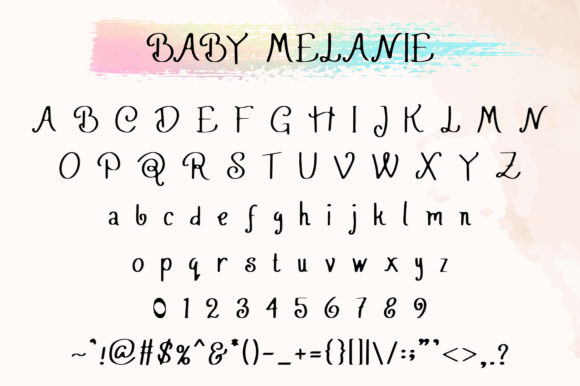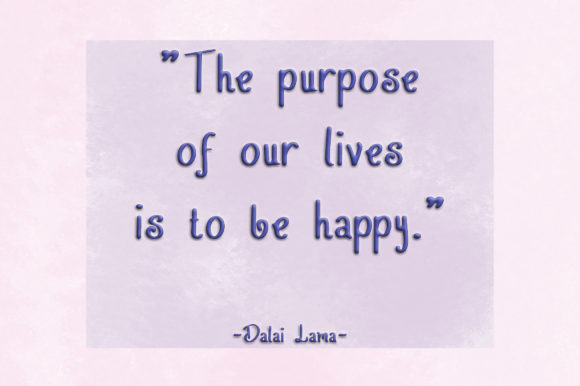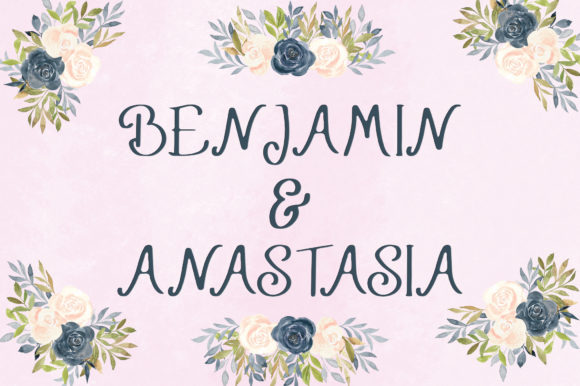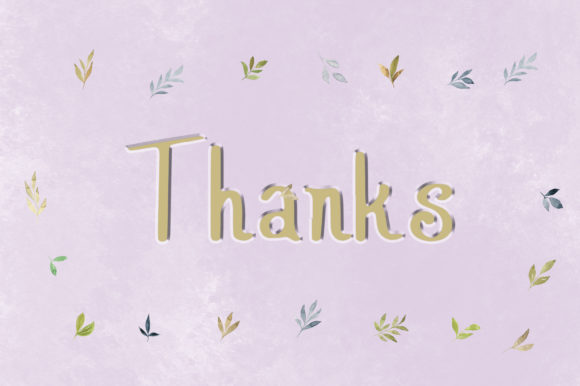
Discover the Magic of Baby Melanie Font
Have you ever been working on a design project and suddenly, everything falls into place? The colors, the textures, the typography – it’s as if the universe is guiding your creative hands. For designers, those moments are the sweetest of all. And that’s exactly what inspired us to dive into the enchanting world of Baby Melanie Font.
Baby Melanie Font is a charming script font that’s as sweet as its name. Its elegant alternates and ligatures make it the perfect match for any project that needs a touch of whimsy and sophistication. Whether you’re designing a wedding invitation, a children’s book, or a brand identity, Baby Melanie Font is sure to bring a smile to your face and a sparkle to your design.
Baby Melanie Font Key Features
- Font Family: Baby Melanie
- Font Size: 6,000+ glyphs
- Unique Characteristics: Whimsical, hand-drawn style with intricate details, ideal for children’s books, nursery decor, and other creative projects
Baby Melanie Font Review
I’ve had the chance to work with Baby Melanie Font, and I must say it’s a delightful addition to any design project. ✨ The font’s playful and whimsical nature makes it perfect for children’s books, nursery decor, and other kid-friendly content. The font’s rounded edges and soft curves give it a friendly and approachable feel that’s sure to capture young readers’ attention.
One of the standout features of Baby Melanie Font is its excellent legibility, even at small font sizes. ✨ The font’s letterforms are well-proportioned and easy to read, making it a great choice for body text or headlines. Additionally, the font’s OpenType features allow for a range of stylistic variations, adding an extra layer of visual interest to your designs.
- ⚠️ Limited language support: Baby Melanie Font is currently only available in a limited number of languages, which may be a concern for designers working on multilingual projects.
- ⚠️ Limited typographic flexibility: While the font is well-suited for certain design applications, it may not be the best choice for more complex typography or editorial content.
Overall, I think Baby Melanie Font is a great addition to any designer’s toolkit. While it may have some limitations, its unique personality and excellent legibility make it a great choice for the right projects. With a little creative thinking, you can unlock the full potential of this charming font.
Getting the Most Out of Baby Melanie Font
For the best results, use Baby Melanie Font for titles, headings, and other display text. This font is ideal for creating a playful, whimsical feel in your designs.
Baby Melanie Font is perfect for:
- Infant and toddler product packaging.
- Fun and playful marketing materials.
Alternatives to Baby Melanie Font for Designers
Great Vibes Font is a beautiful, elegant script font that is perfect for creating a whimsical and romantic atmosphere. It is ideal for use in wedding invitations, baby shower invitations, and other special occasion designs. Great Vibes Font has a more refined and sophisticated look compared to Baby Melanie Font, making it suitable for more formal designs.
Pacifico Font is a modern script font with a relaxed and casual feel. It is perfect for use in designs that require a friendly and approachable tone, such as food blogs, travel websites, and social media graphics. Pacifico Font has a more laid-back and casual look compared to Baby Melanie Font, making it suitable for everyday designs.
Alex Brush Font is a elegant and sophisticated script font that is perfect for creating a high-end and luxurious atmosphere. It is ideal for use in designs that require a touch of elegance and sophistication, such as luxury branding, high-end packaging, and special occasion invitations. Alex Brush Font has a more refined and luxurious look compared to Baby Melanie Font, making it suitable for premium designs.
Carolyna Pro Font is a modern script font with a clean and minimalist design. It is perfect for use in designs that require a clean and modern look, such as fashion branding, interior design websites, and product packaging. Carolyna Pro Font has a more modern and sleek look compared to Baby Melanie Font, making it suitable for contemporary designs.